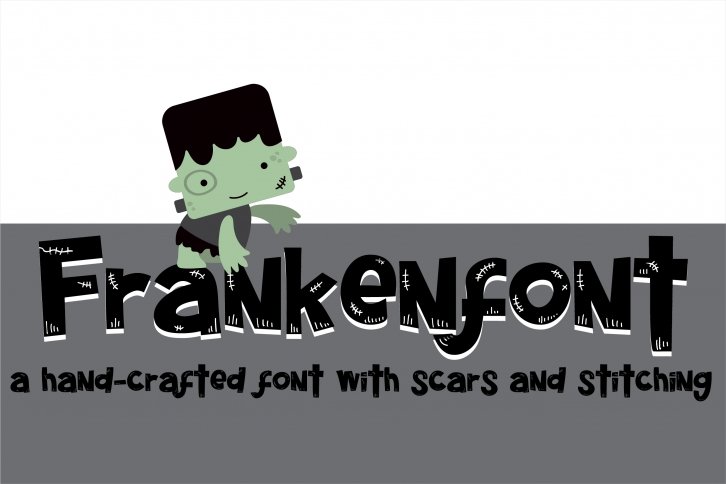
PN Franken is a beautiful font that was designed by Illustration Ink. It's a great choice for designers and creatives who need such a font. It was released on October 2, 2018 and the file size is 15.26 MB. PN Franken may give a more youthful, expressive and casual look to your project. It is a very beautiful, refined, elegant, and high-quality font.